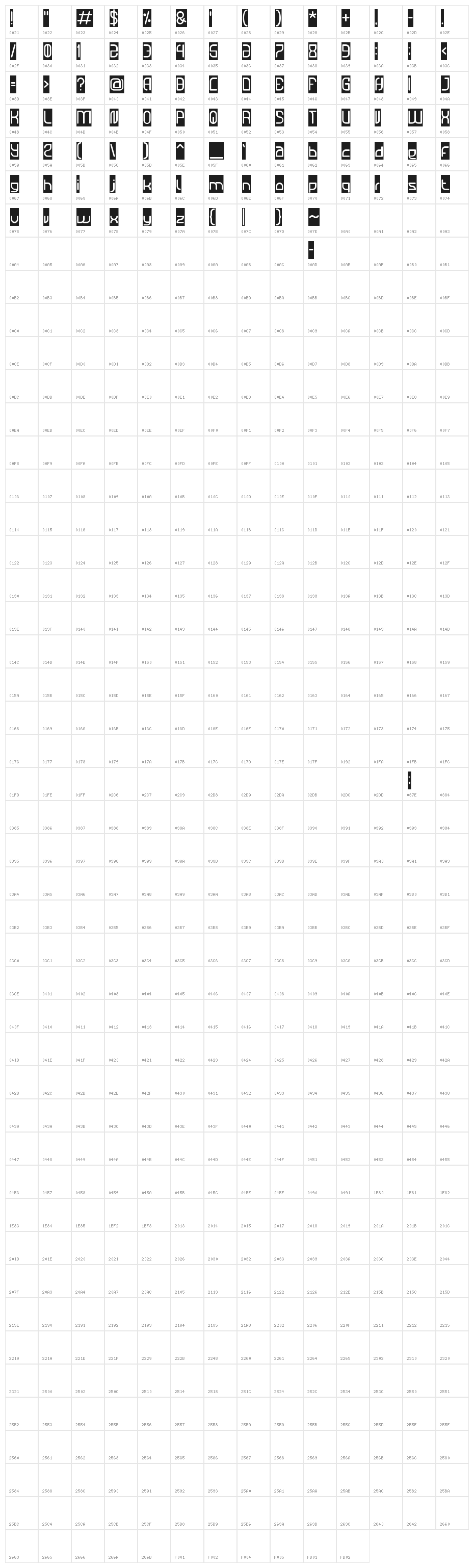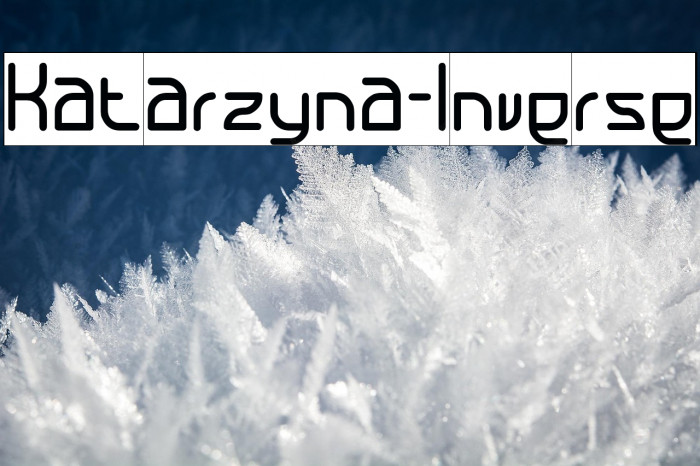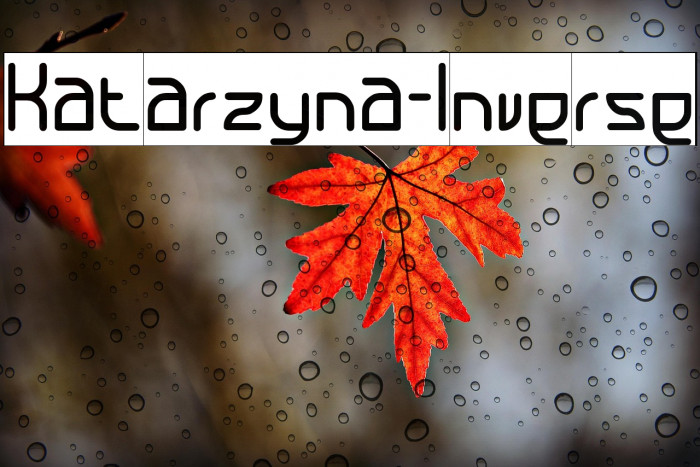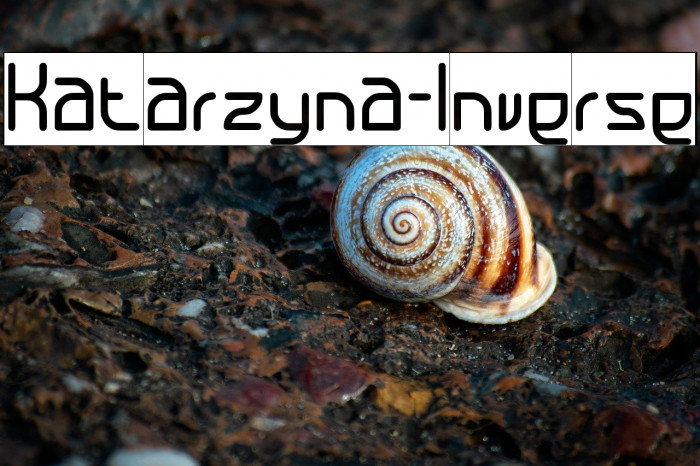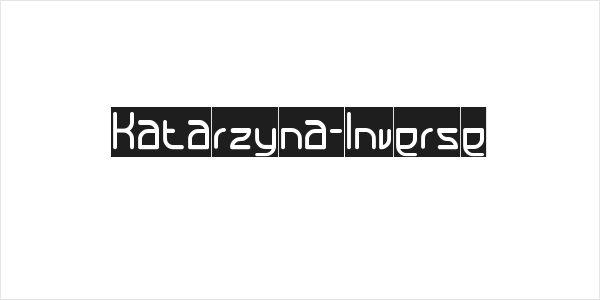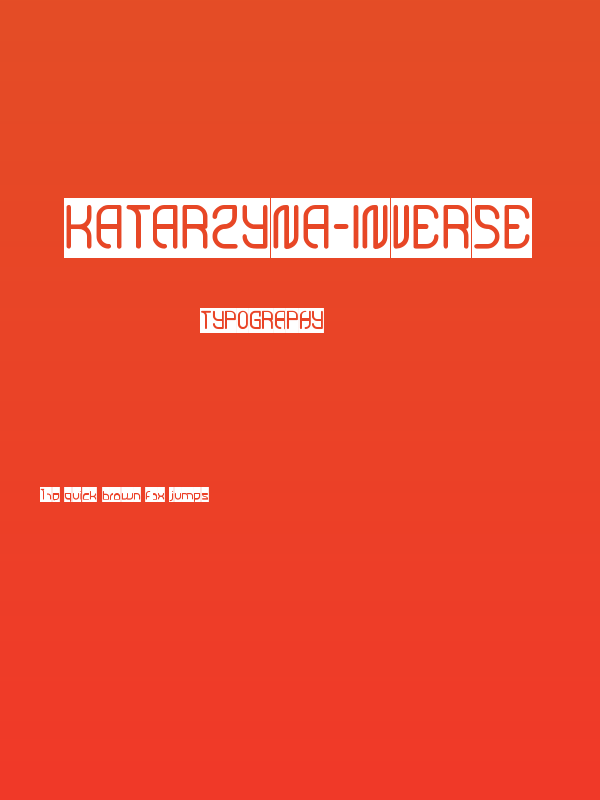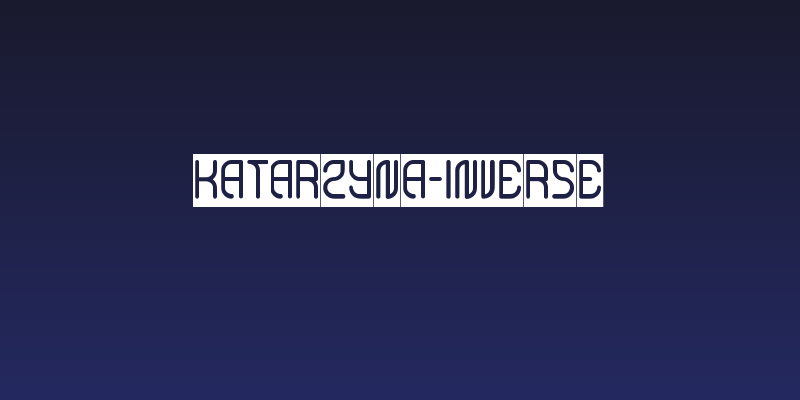
Katarzyna-Inverse Font
Katarzyna-Inverse Description
This font features a modern and futuristic design with a unique geometric structure. The characters are composed of clean, rounded lines that create a sense of fluidity and movement. The uppercase and lowercase letters maintain a consistent style, with a focus on simplicity and readability. The numbers and special characters are designed to match the overall aesthetic, providing a cohesive look. The font's distinct style makes it suitable for projects that require a contemporary and innovative appearance.
| Overall Style | Futuristic, Geometric |
| Use Case | Headlines, Logos, Digital Interfaces |
| Proposed Projects | Ideal for technology branding, modern advertising, digital interfaces, and innovative product packaging. |